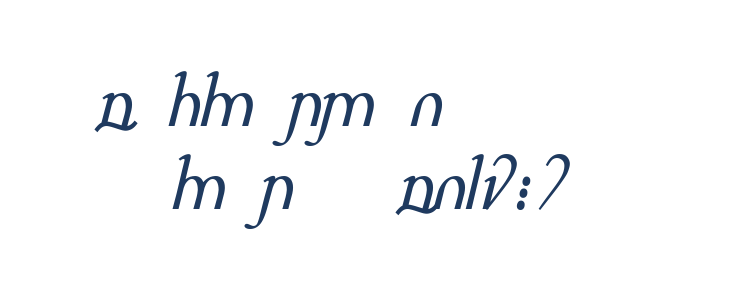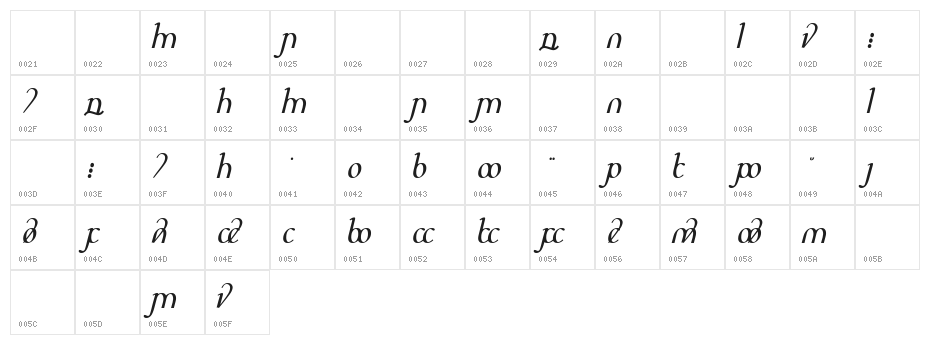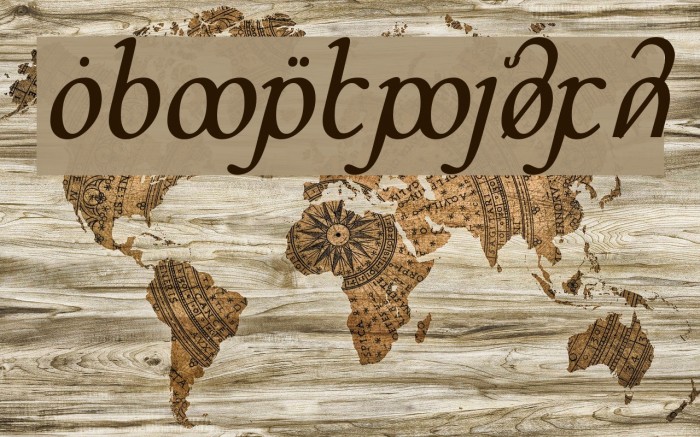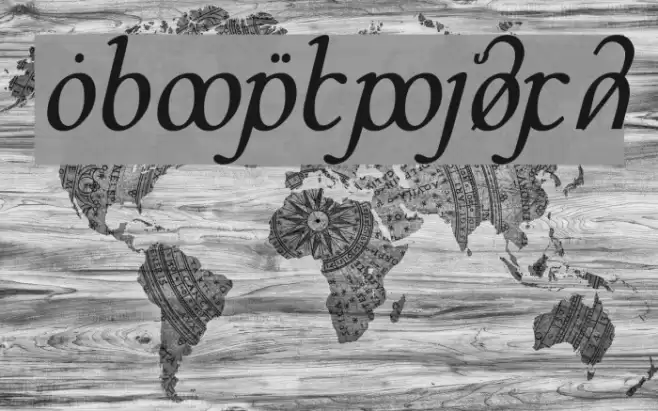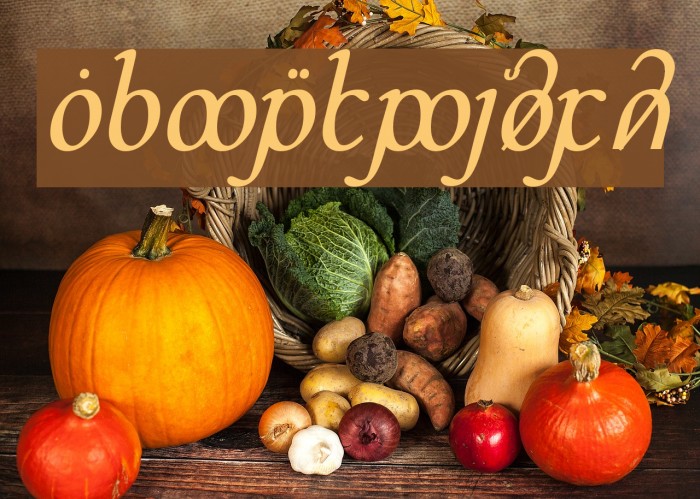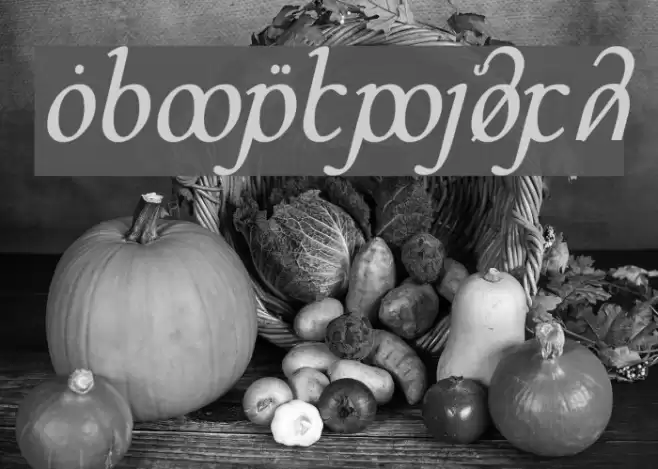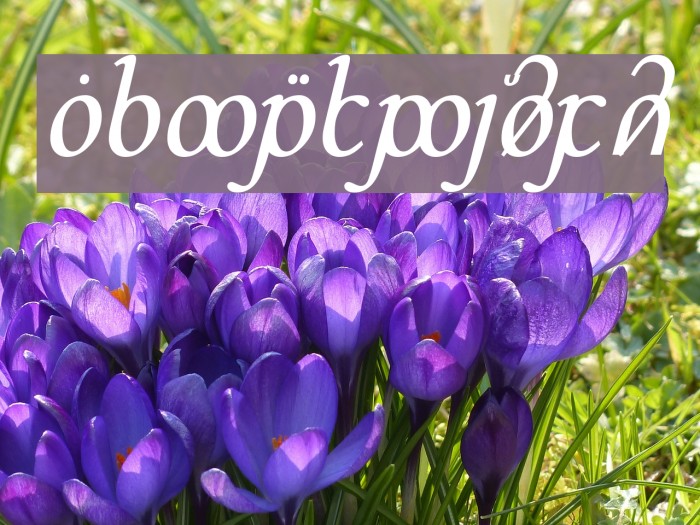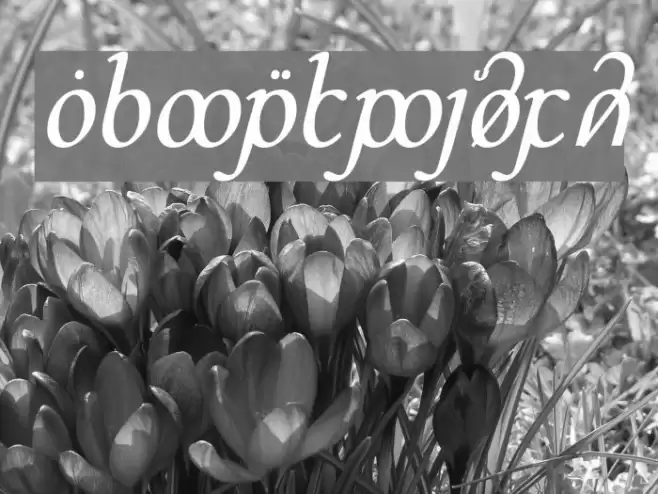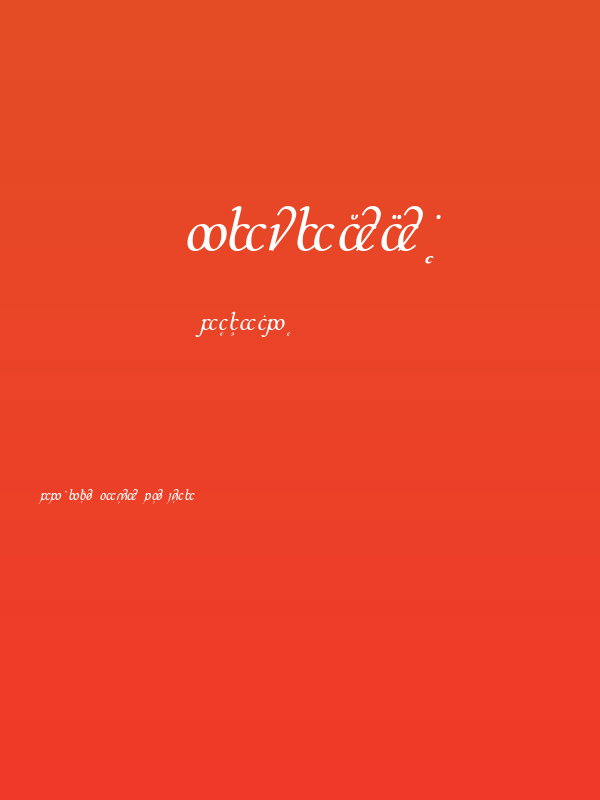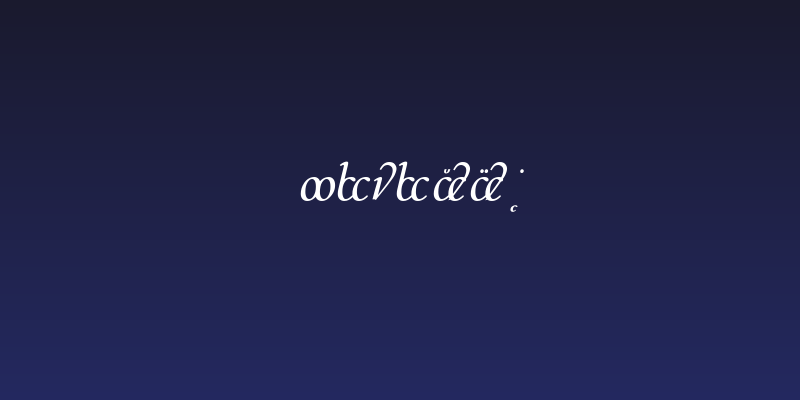
DS_Sinenya Font
DS_Sinenya Description
This font features a unique and artistic design, characterized by its flowing, cursive-like strokes and elegant curves. The letters exhibit a harmonious blend of traditional calligraphy and modern aesthetics, creating a sophisticated and stylish appearance. The uppercase and lowercase letters maintain a consistent style, with smooth transitions and a slight slant that adds a dynamic feel. The numerals and special characters are designed to complement the overall look, ensuring versatility and coherence across different uses. This font is ideal for projects that require a touch of elegance and creativity, making it suitable for branding, invitations, and artistic endeavors.
| Proposed Projects | Ideal for branding, invitations, artistic projects, and any design requiring elegance. |